Yes, I know. I haven’t been posting a lot on Notebook lately. There’s a good reason for this: Proxima Nova. That’s what I’m tentatively calling the new improved version of my ten-year-old Proxima Sans, one of the most ambitious font projects I’ve ever undertaken. Here’s how it looks so far:
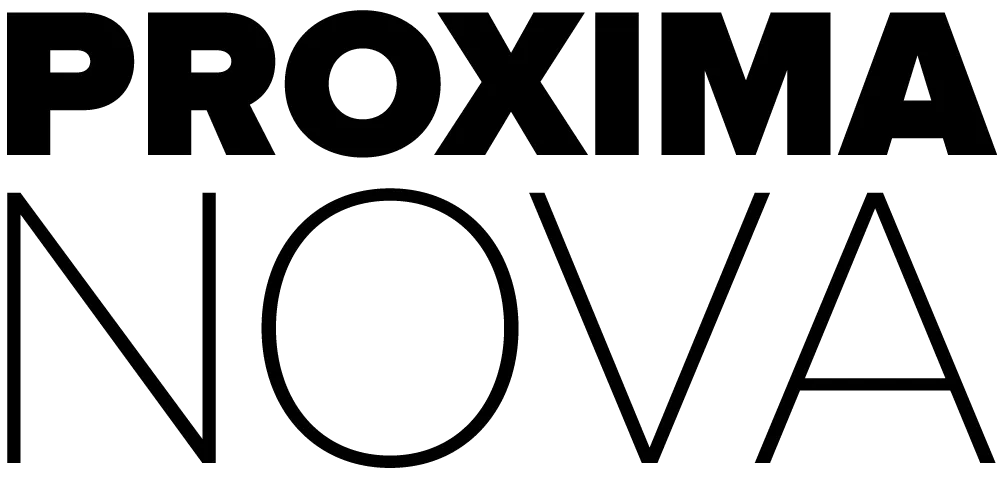
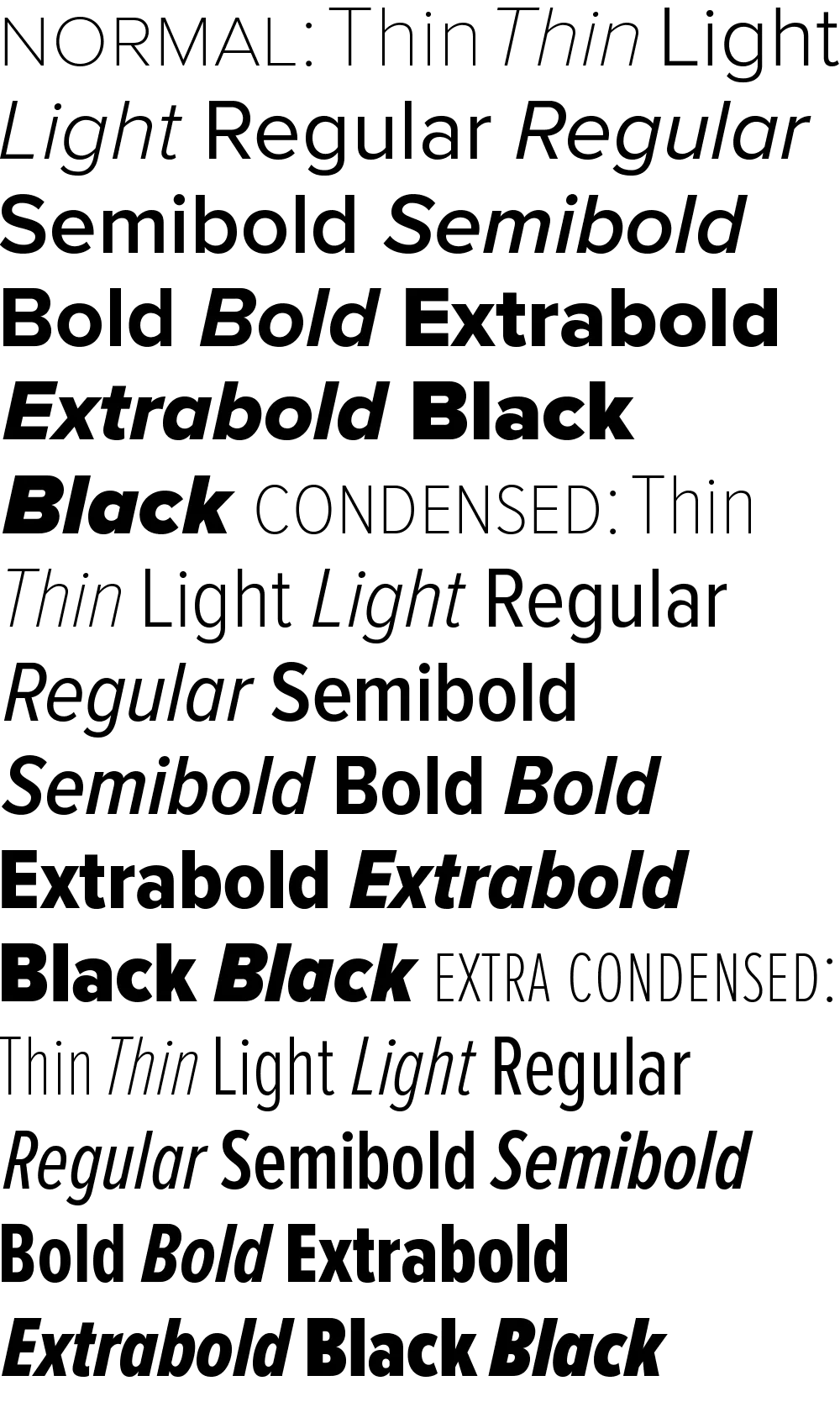
Ever since I released it in 1994, I’ve had in the back of my mind larger plans for Proxima Sans. Small caps. More weights. Condensed styles. After some potential customers asked about such possibilities early last year, I decided it was time.
The new version will have more than new weights and features. I went over every character, refining and retooling the design, adjusting, perfecting, cleaning up. In short, this is completely new set of fonts.
Proxima Sans
Released: 1994
3 weights, 2 styles
6 fonts total
Basic Western Latin
245 characters
Proxima Nova
To be released: Soon
7 weights, 2 styles, 3 widths
42 fonts total
Extended Latin (including CE)
699 characters
699 characters? You read that right. Take a look:
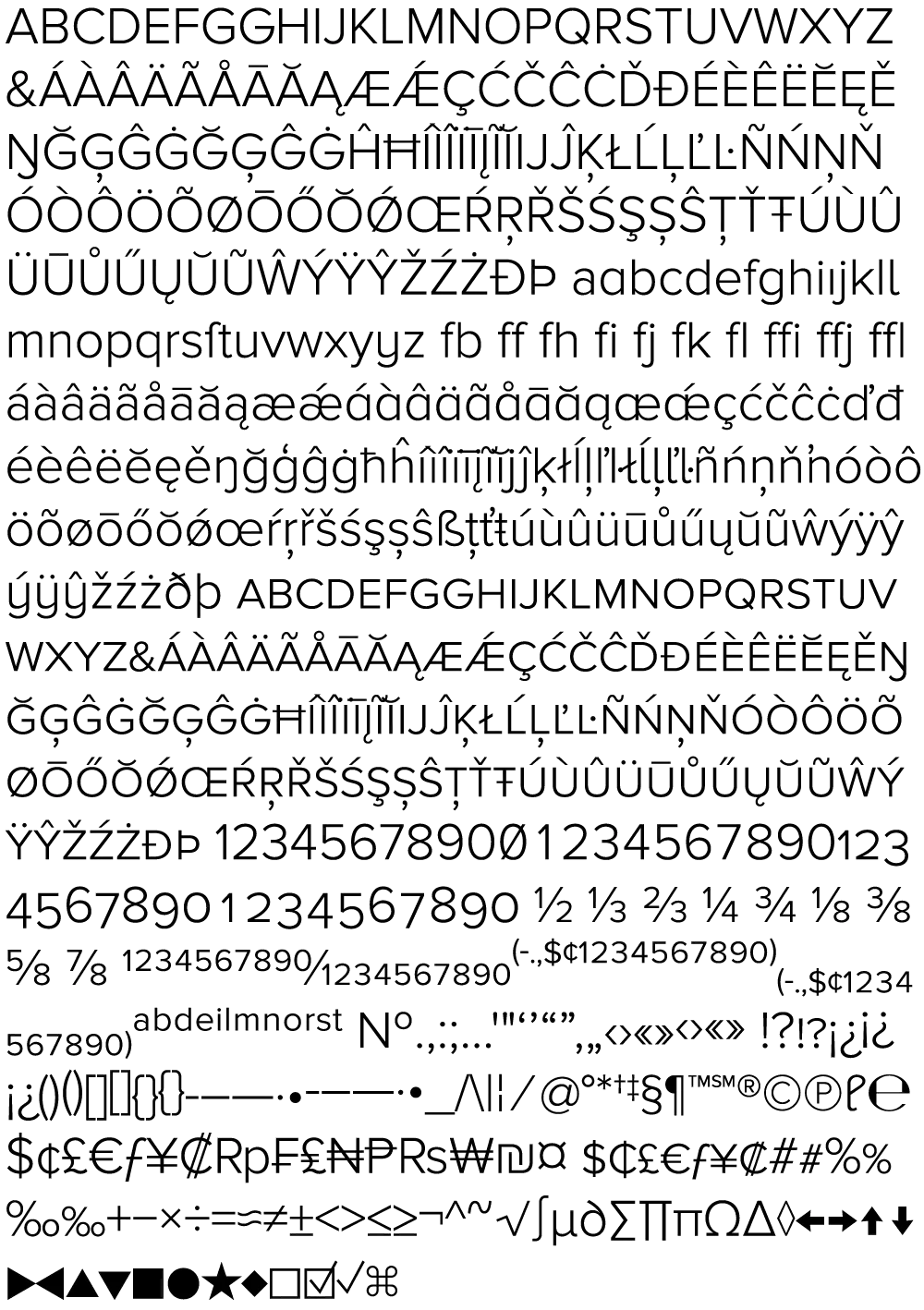
All the characters from Proxima Sans are still there (even the dingbats). But there’s loads of new stuff, and every weight has all this in it, all in one font. No separate “expert” fonts needed.
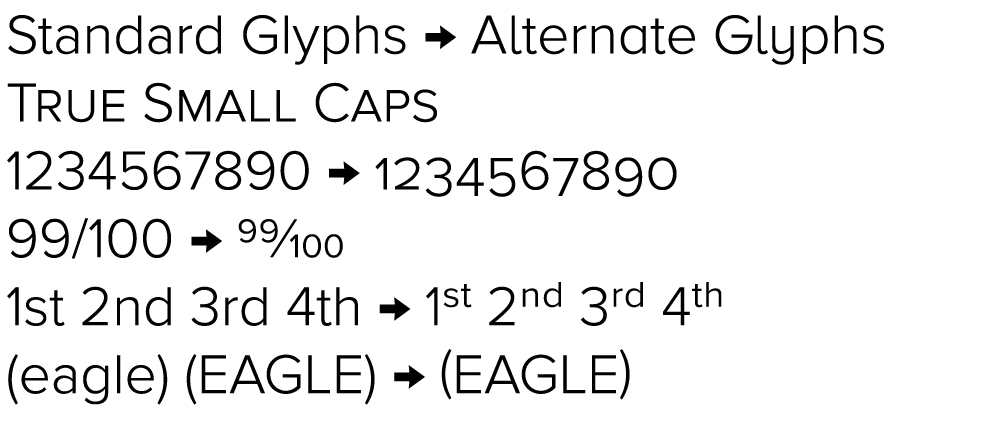
In order to keep these hundreds of characters under control, Proxima Nova will be released in OpenType format. Using popular graphics software like Adobe’s Creative Suite and (real soon now) QuarkXPress, you will be able to tap into sophisticated typographic effects such as:
- True small caps
- Lining and old style numbers
- Proportional and tabular numbers
- Automatic “f” ligatures
- Alternate character designs for some characters
- Automatic fraction creation
- True superscript and subscript characters
- Automatic ordinal formatting (e.g., 1st, 2nd, etc.)
- Case-sensitive alternate forms for parentheses, brackets, etc.
- Alternate forms of certain characters to match small caps and old style numbers
As to how soon Proxima Nova will be available, it’s difficult to say. The roman styles shown here are in the final stages of completion. It mostly depends on how long it takes for me to finish the italics. Sure, I could just hit the “slant” button and be done with it. But, it’s not so simple to do it right. Best guess: Spring 2005.
6/24/05 Update: If all goes as planned, Proxima Nova will be released by the end of June 2005. I’ve updated the graphic above showing the various weights and styles to include the italics. Also, the weight and style names are slightly different than what I originally announced here in March.